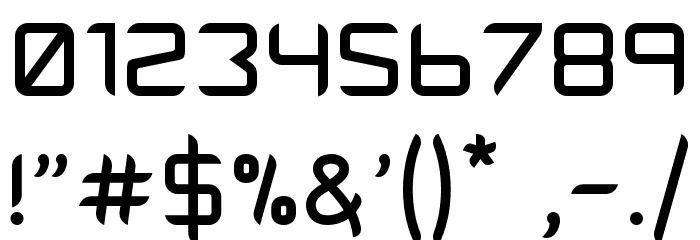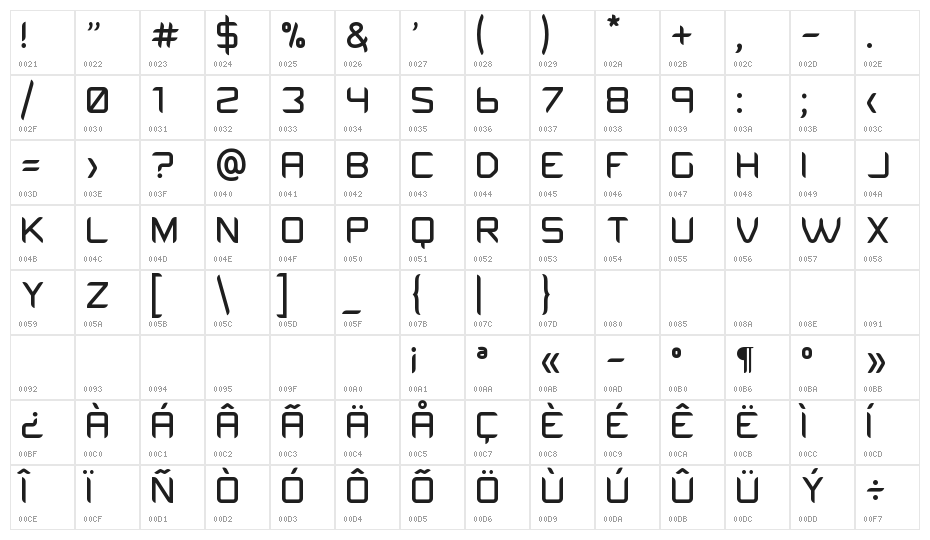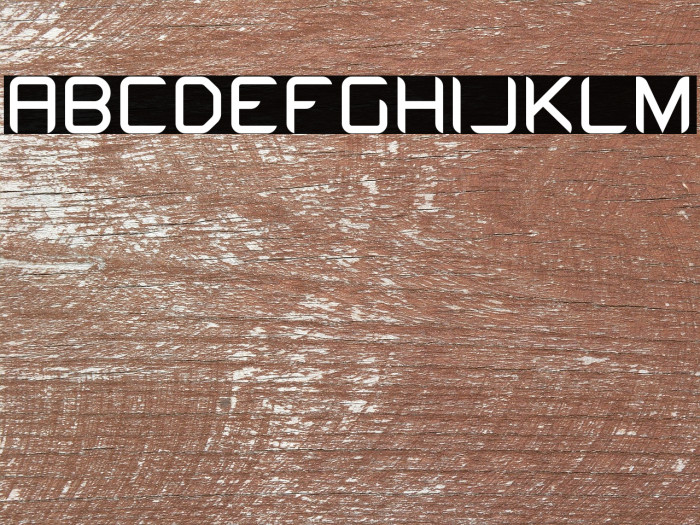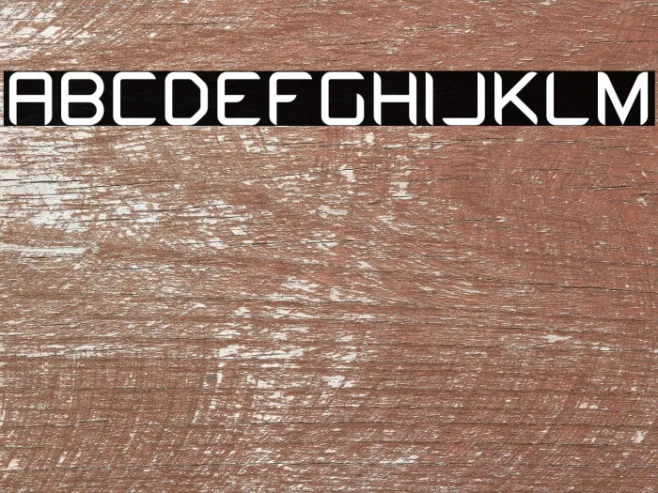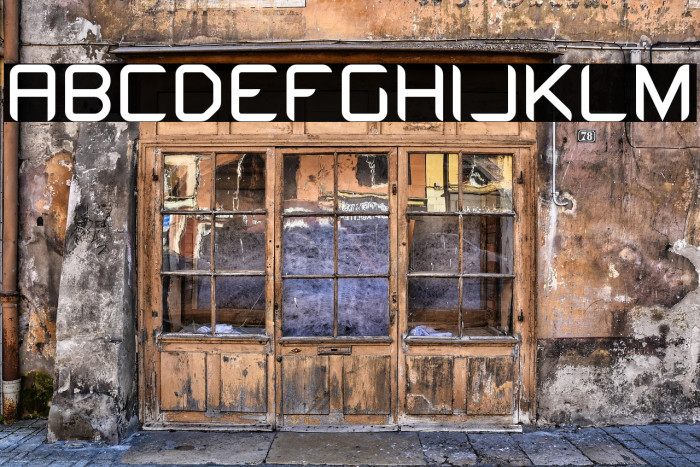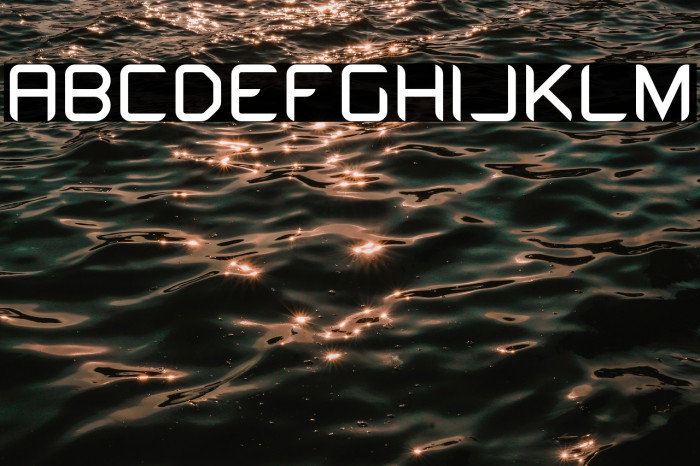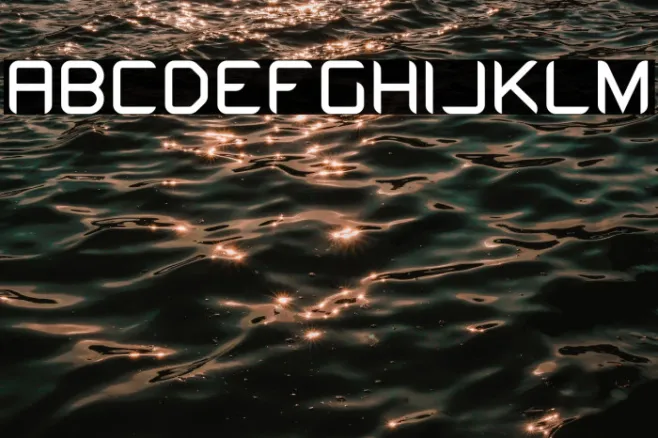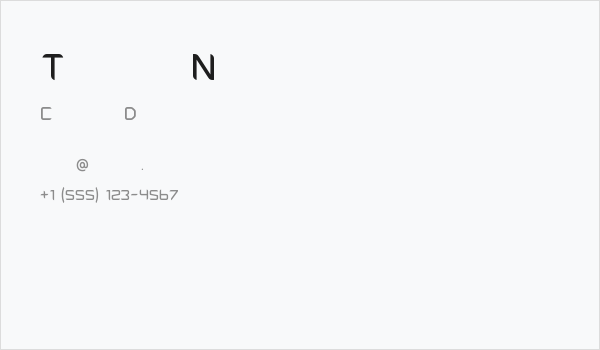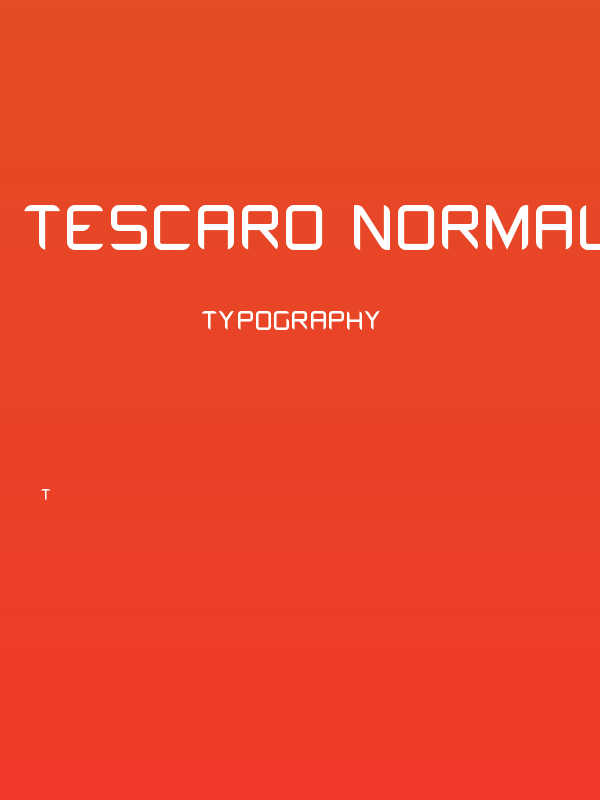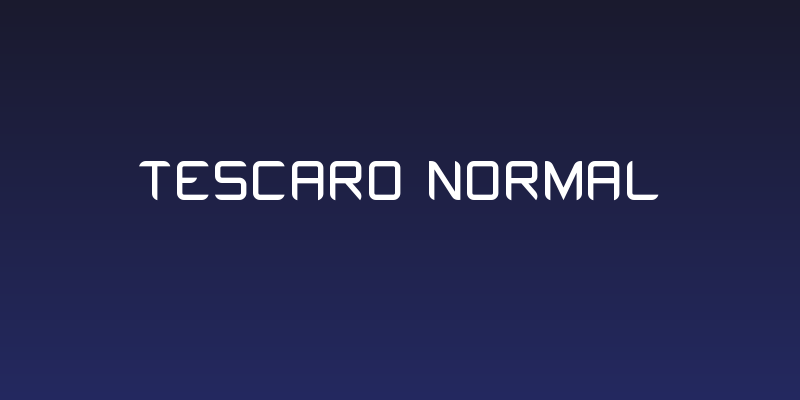
Tescaro Normal Font
Tescaro Normal Description
This font features a modern, geometric style with clean lines and a futuristic feel. The characters are uniformly structured, with a consistent stroke width that gives it a sleek and polished appearance. The uppercase and lowercase letters maintain a cohesive look, while the numerals and special characters complement the overall design. The font's rounded edges and slightly condensed form contribute to its contemporary aesthetic, making it suitable for a variety of digital and print applications.
| Proposed Projects | Ideal for technology branding, digital interfaces, modern advertising, and futuristic-themed projects. |